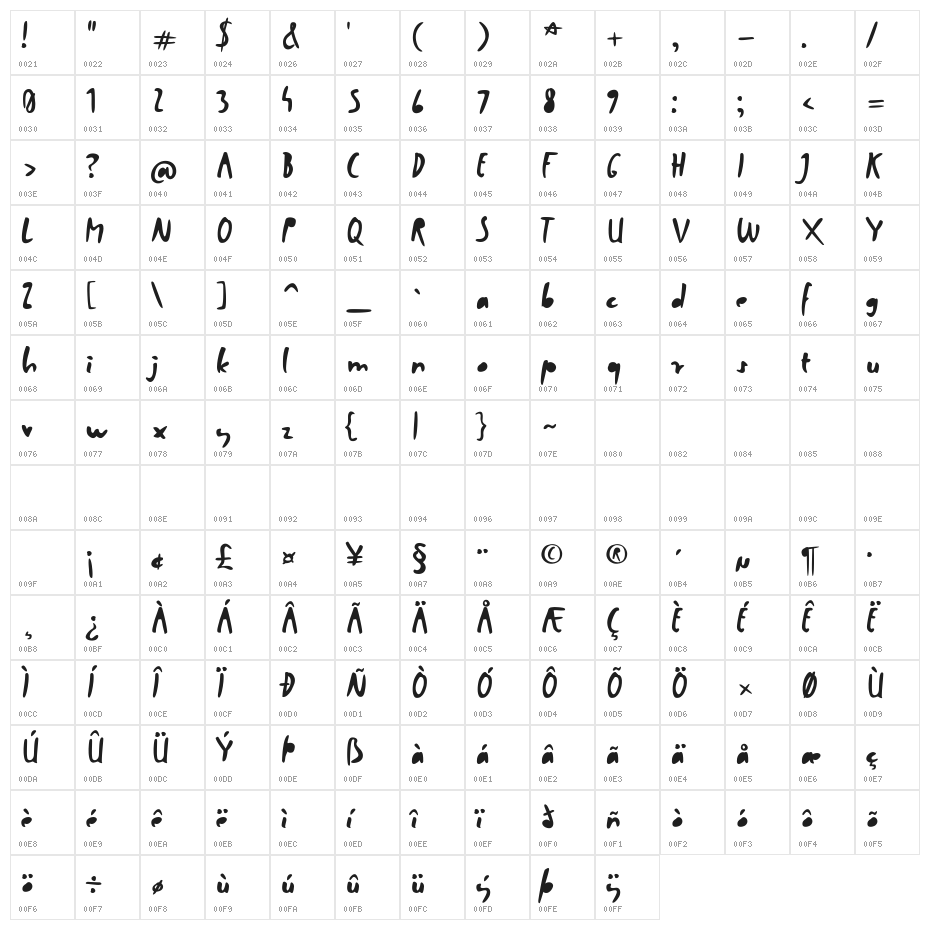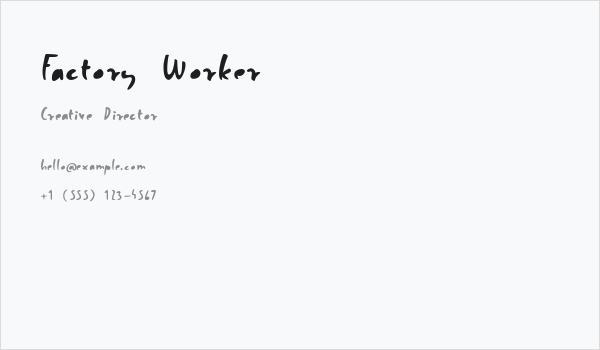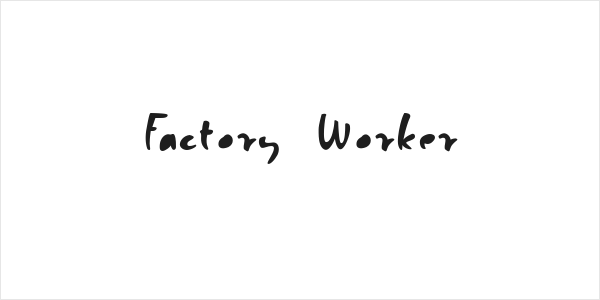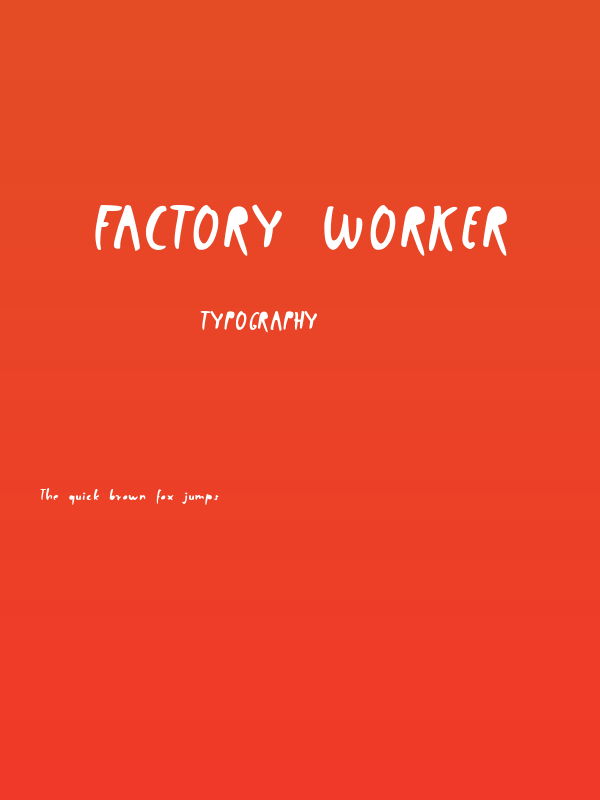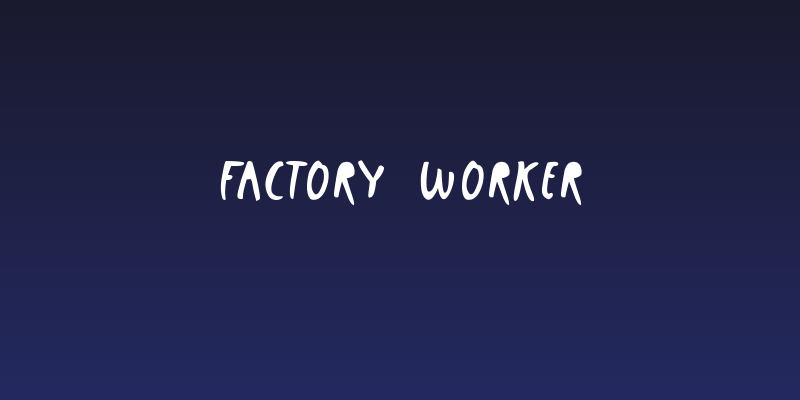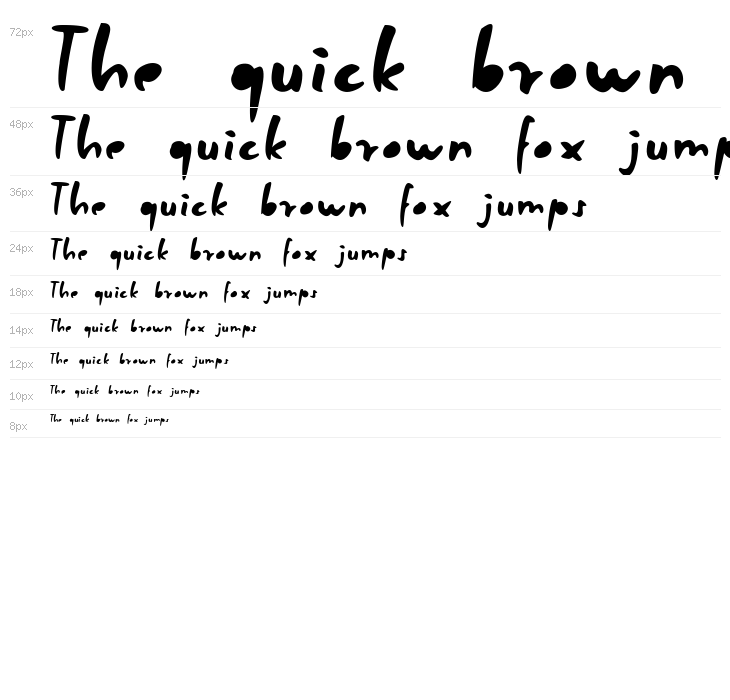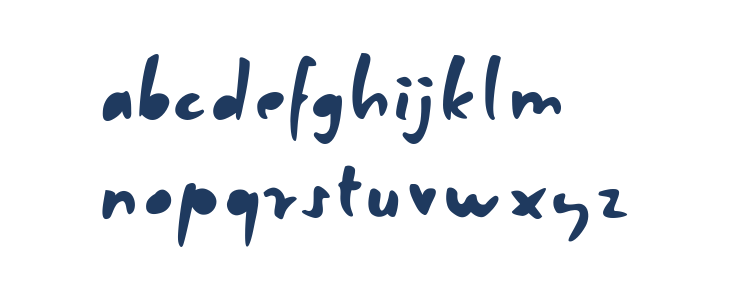
Factory Worker Font
Factory Worker Description
This font features a playful and casual handwritten style, characterized by its uneven strokes and organic flow. The letters vary in width and height, giving it a dynamic and lively appearance. The uppercase letters are bold and slightly slanted, while the lowercase letters maintain a consistent, rounded form. Numbers are clear and legible, matching the overall whimsical aesthetic. Special characters are creatively designed, adding to the font's unique personality. This font is perfect for projects that require a personal touch or a sense of informality.
Overall StyleCasual, Playful
Use CaseLogos, Headlines, Informal Text
Proposed ProjectsIdeal for greeting cards, children's books, casual branding, and social media graphics.